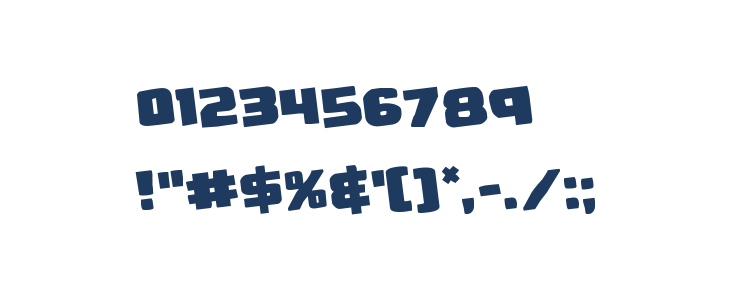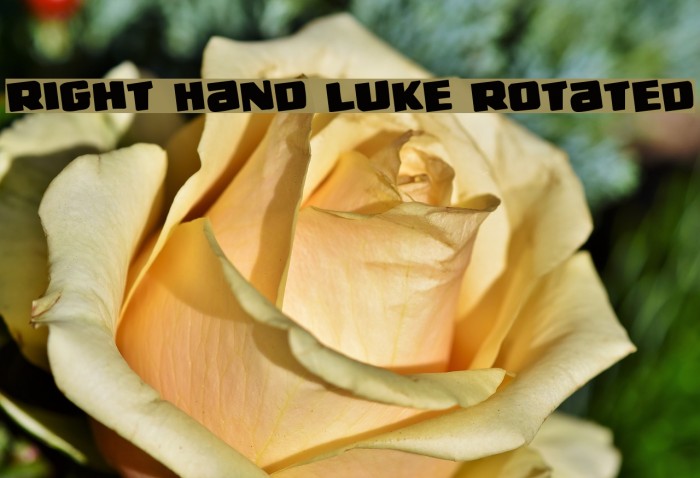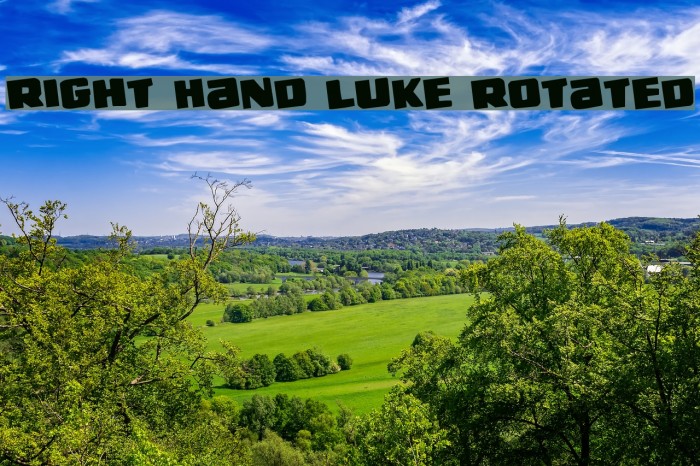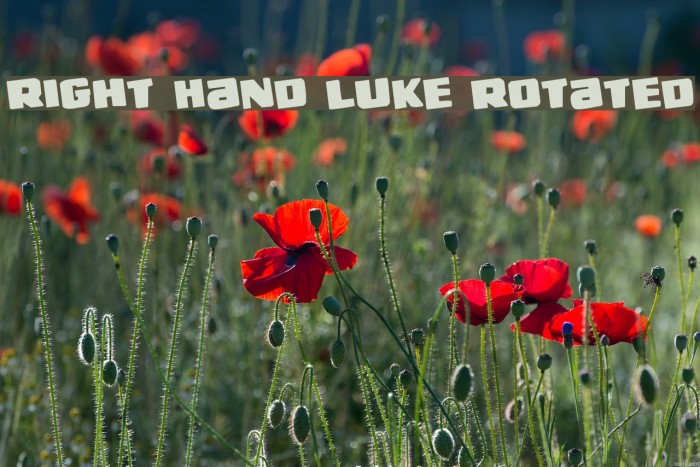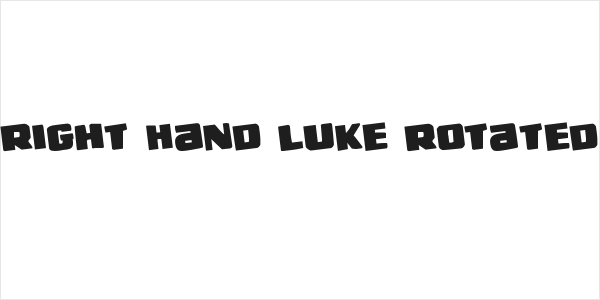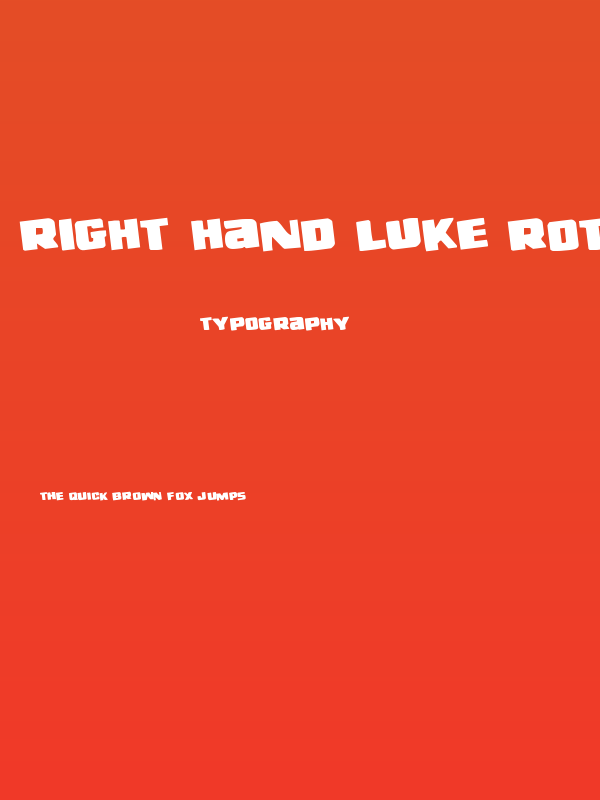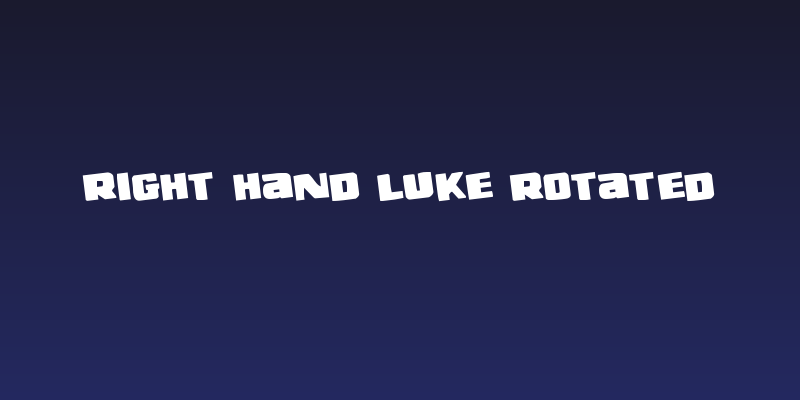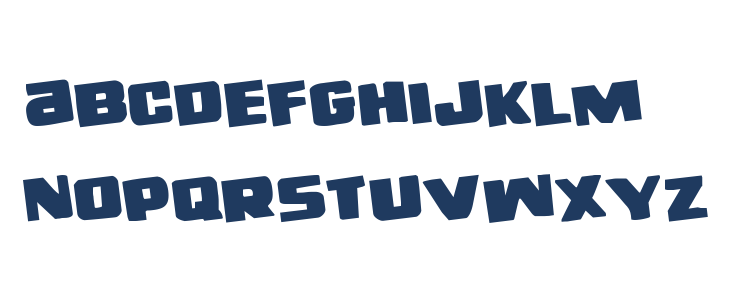
Right Hand Luke Rotated Font
Right Hand Luke Rotated Description
This font features bold, blocky characters with a distinct slant, giving it a dynamic and energetic appearance. The uppercase letters are robust and commanding, while the lowercase letters maintain the same boldness, ensuring consistency across text. The numbers are equally bold, making them stand out prominently. Special characters are designed to match the overall bold and slanted style, ensuring a cohesive look. The font's thick strokes and angular design make it ideal for attention-grabbing headlines and titles. Its unique style is both modern and slightly retro, reminiscent of vintage poster fonts.
| Proposed Projects | Ideal for posters, logos, and headlines that require a bold and energetic look. |